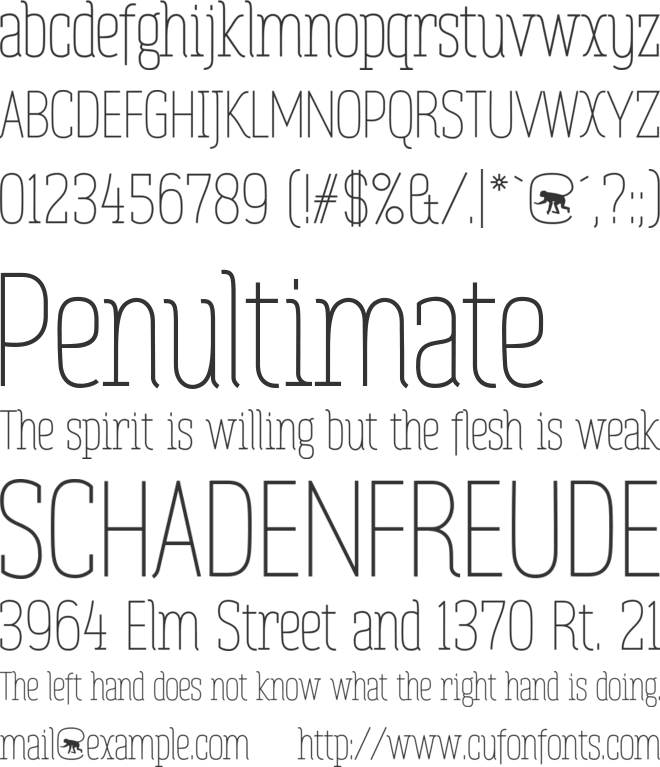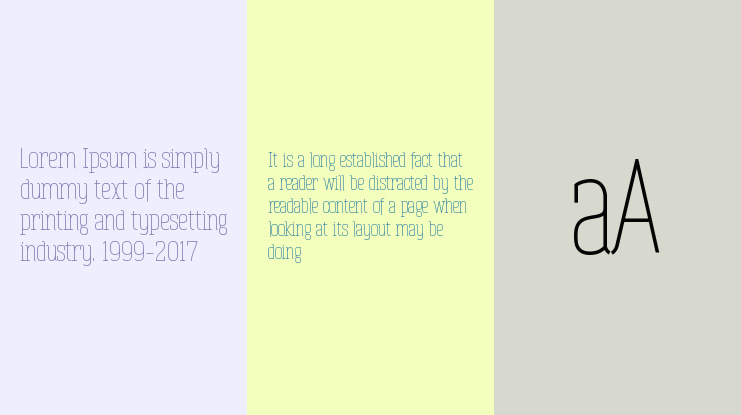
Zowieyoë Font Family
I needed a really thin font for a logo again, and my old Aaargh font didn't look good enough. So I started out with a single s, then I made the word 'spaghetti' (maybe because the character shapes look like spaghetti, or maybe because I'm trying to lose weight and I can't eat spaghetti dammit) and eventually added the rest of the characters. Named by and after my fabulous daughter Zoë who started studying graphic design.